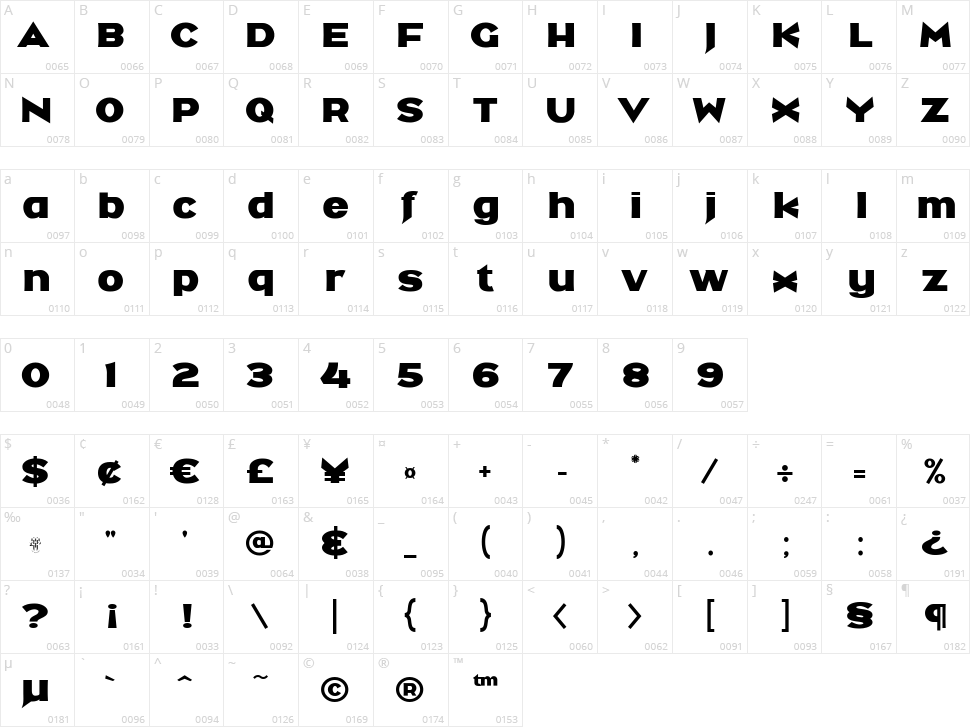
Minne Petat
I needed a BIG FAT letter to make a vertical sign. Made my own as usual and share it for free as usual. 'Minne Petat' is dialect for shithead in the east of the Netherlands by the way.